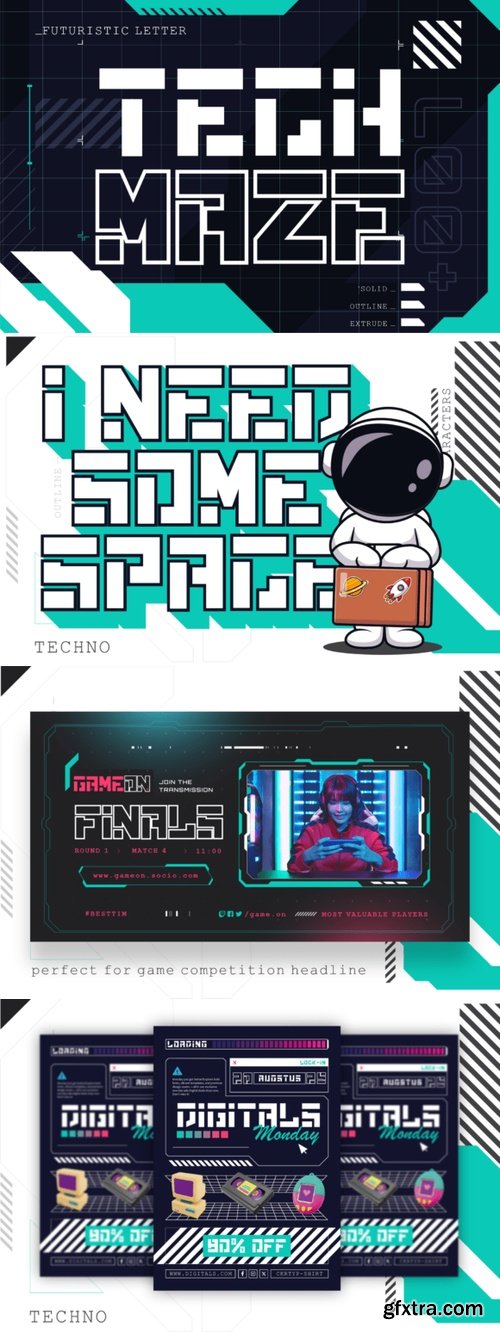
Techmaze Font
- Introducing Techmaze, a sophisticated and versatile typeface where future meets function. Steeped in sci-fi elegance, pixel-perfect artistry, and digital grid inspirations, Techmaze emulates a seamless blend of cutting-edge and classic. Its sturdy, angular edges and block-driven forms make it an ideal choice for boundary-pushing digital designs, contemporary-brand aesthetics, user-interface visualizations, e-sports insignia, gaming titling, or pulse-pounding tech event visuals. Offering three distinct styles – Solid, Outline, and Extrude – Techmaze artistically layers dimension and depth, culminating in a captivating 3D effect. Be it for a sci-fi display interface, a blockchain-related project, or a VR themed concept, Techmaze adds a striking, mechanized edge to every symbol and sign. Transform your design language with the audacious aesthetics of Techmaze.